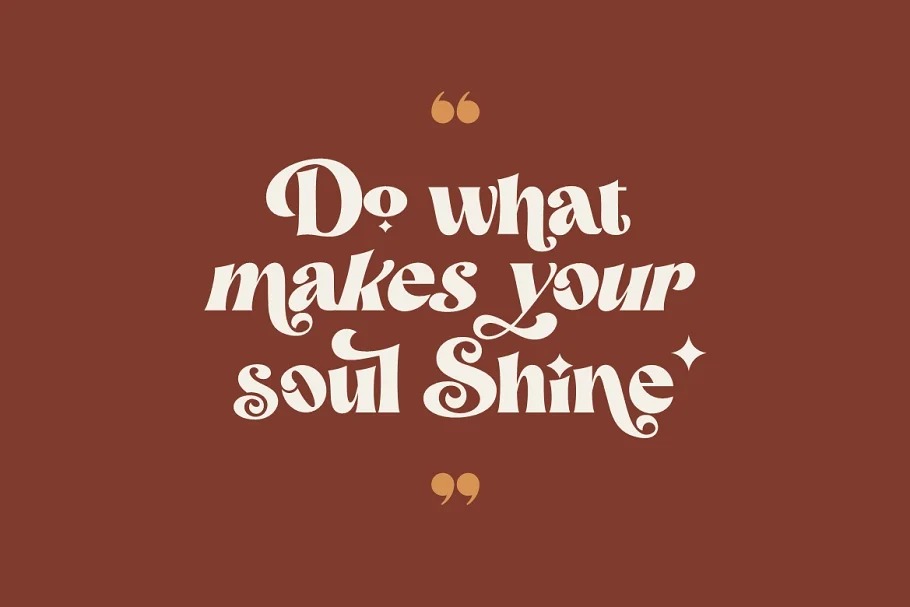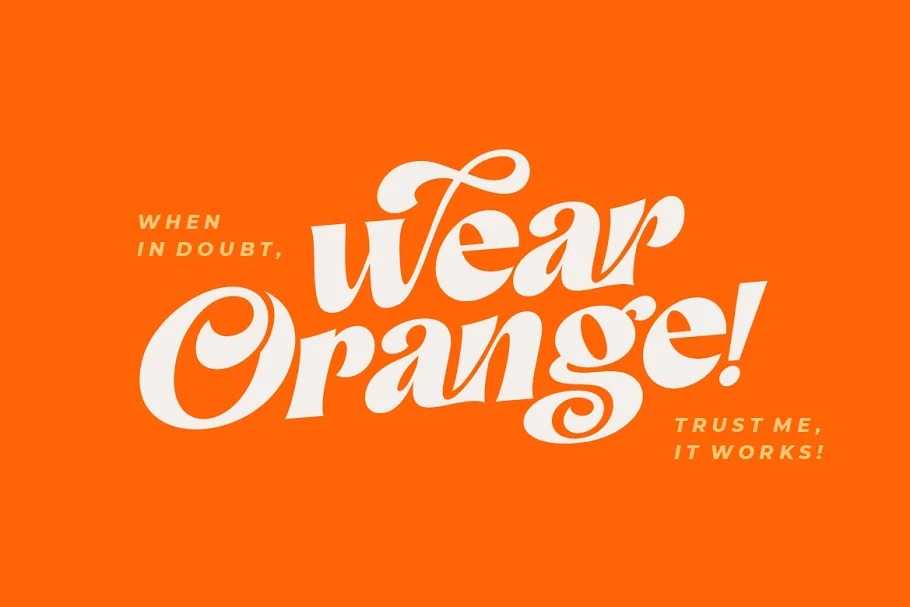
Magic Retro Font
Magic Retro Serif Font
This font is a modern serif with vintage charm, fashionable appearance with a touch of retro. This serif typeface features 25+ ligatures and 80+ alternates in lowerscase and uppercase that you can combine to get awesome project with beautiful ornament bonus. This font is PUA encoded which means you can access all of the glyphs and swashes with ease in photoshop, illustrator and through your character map panel.